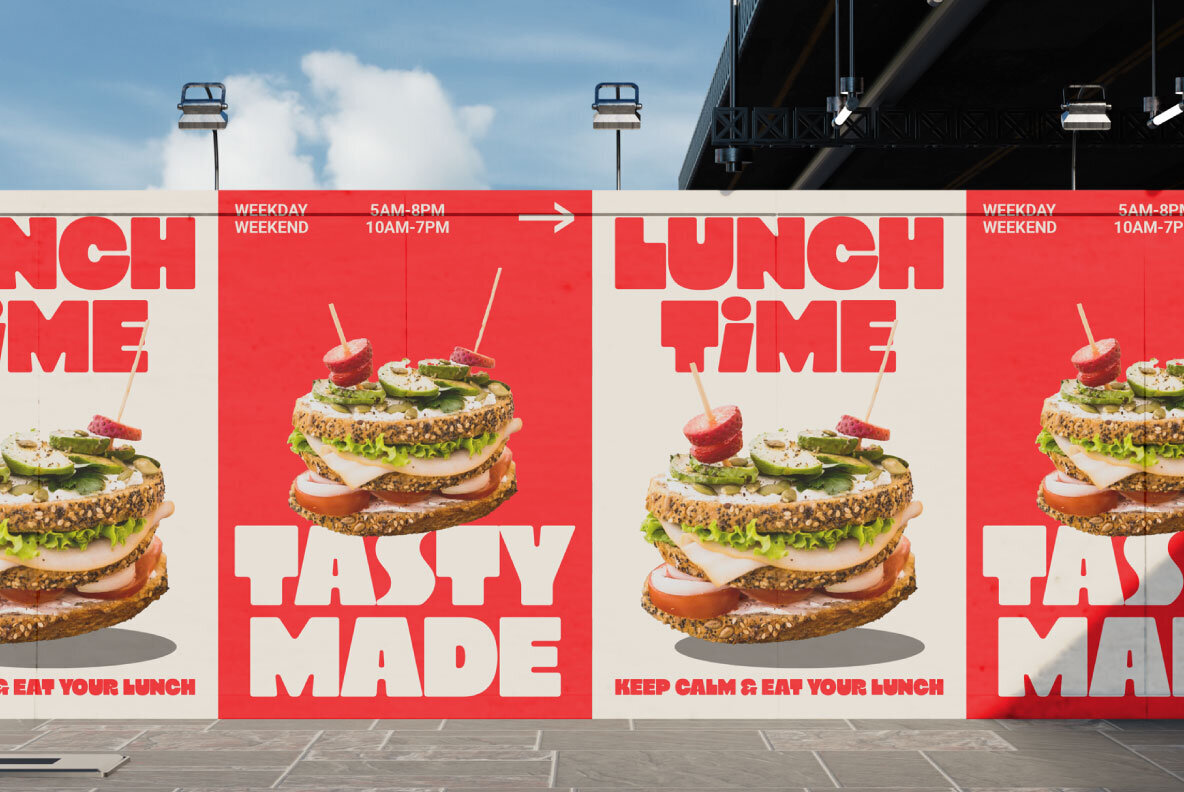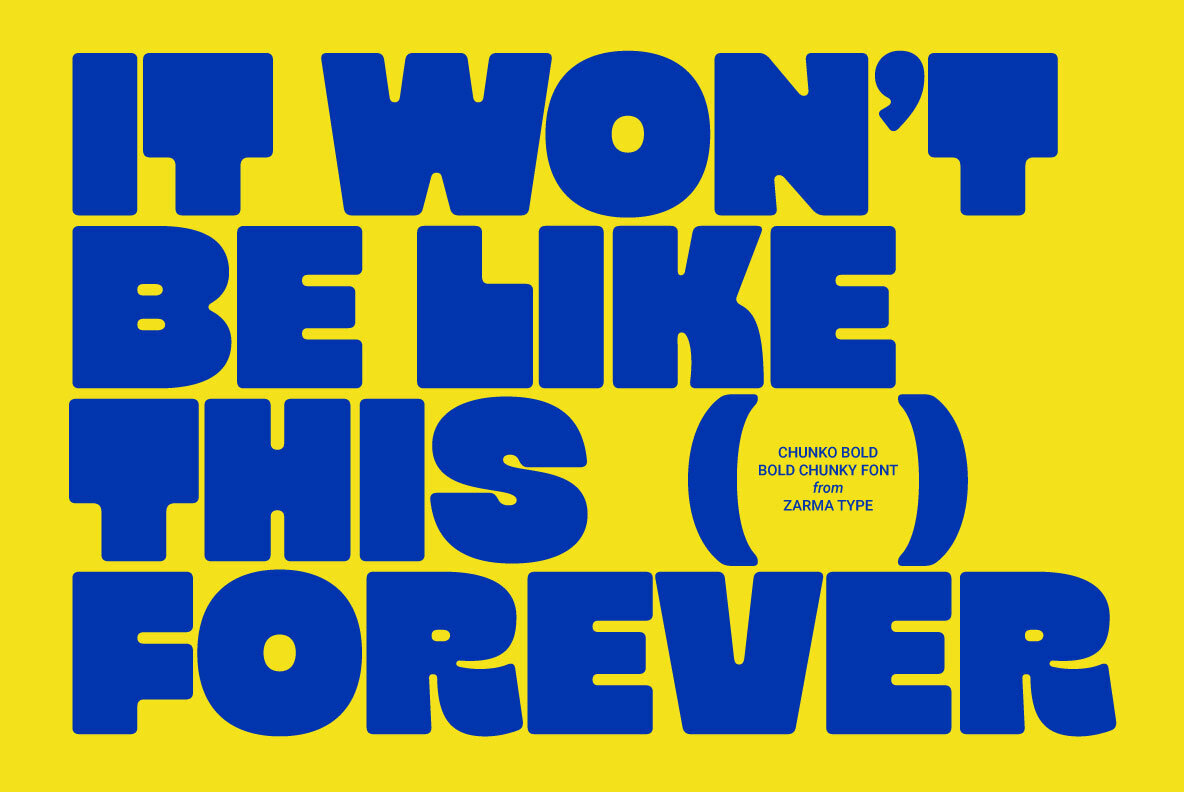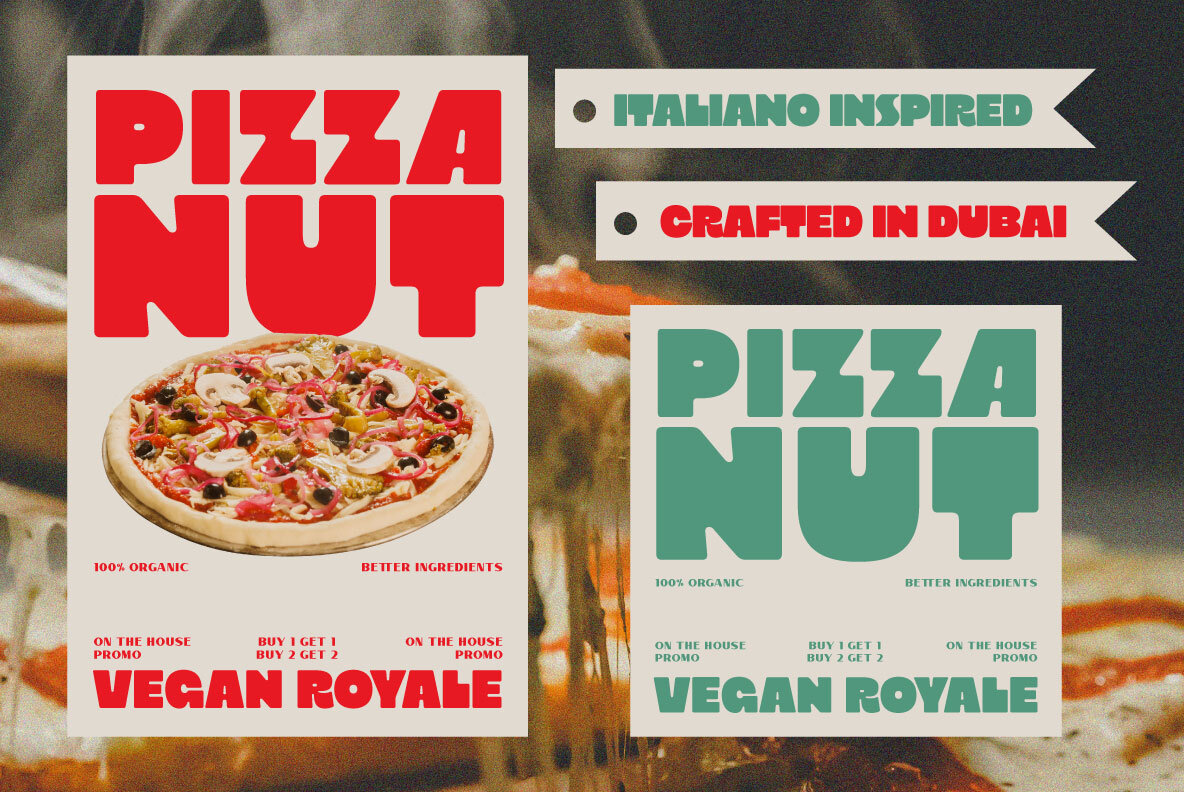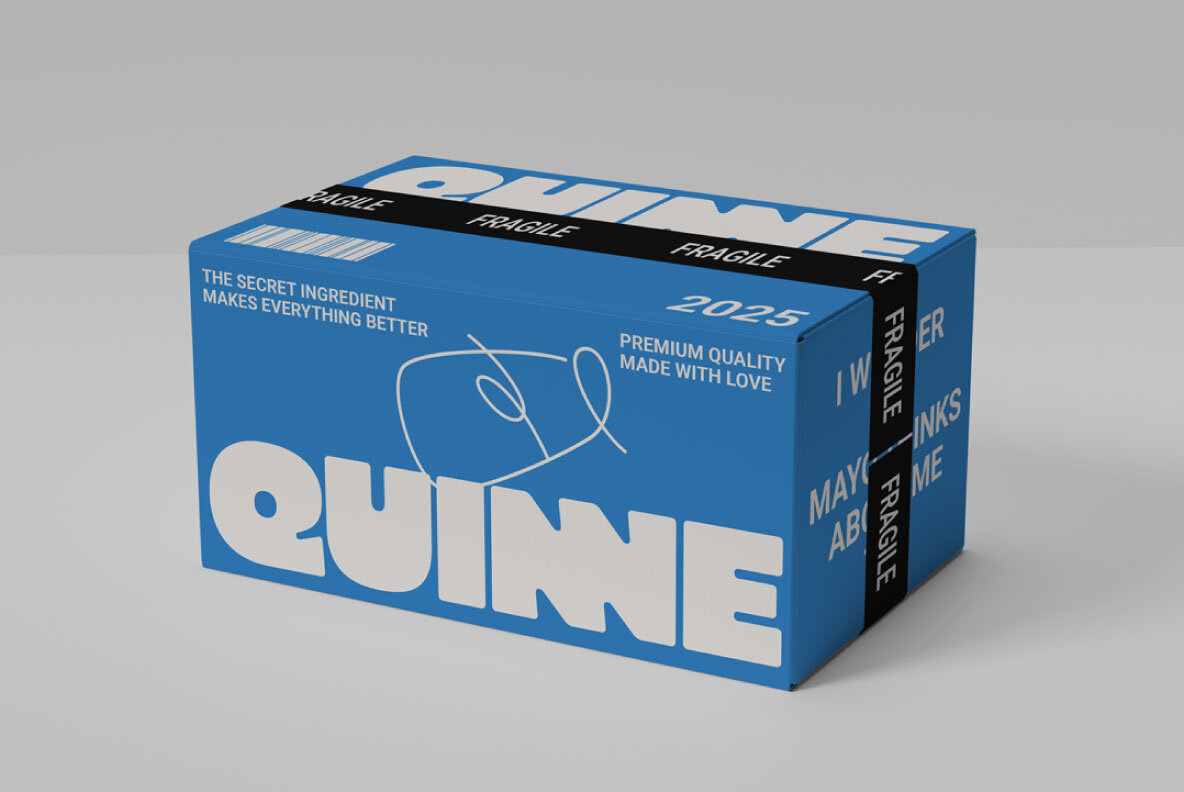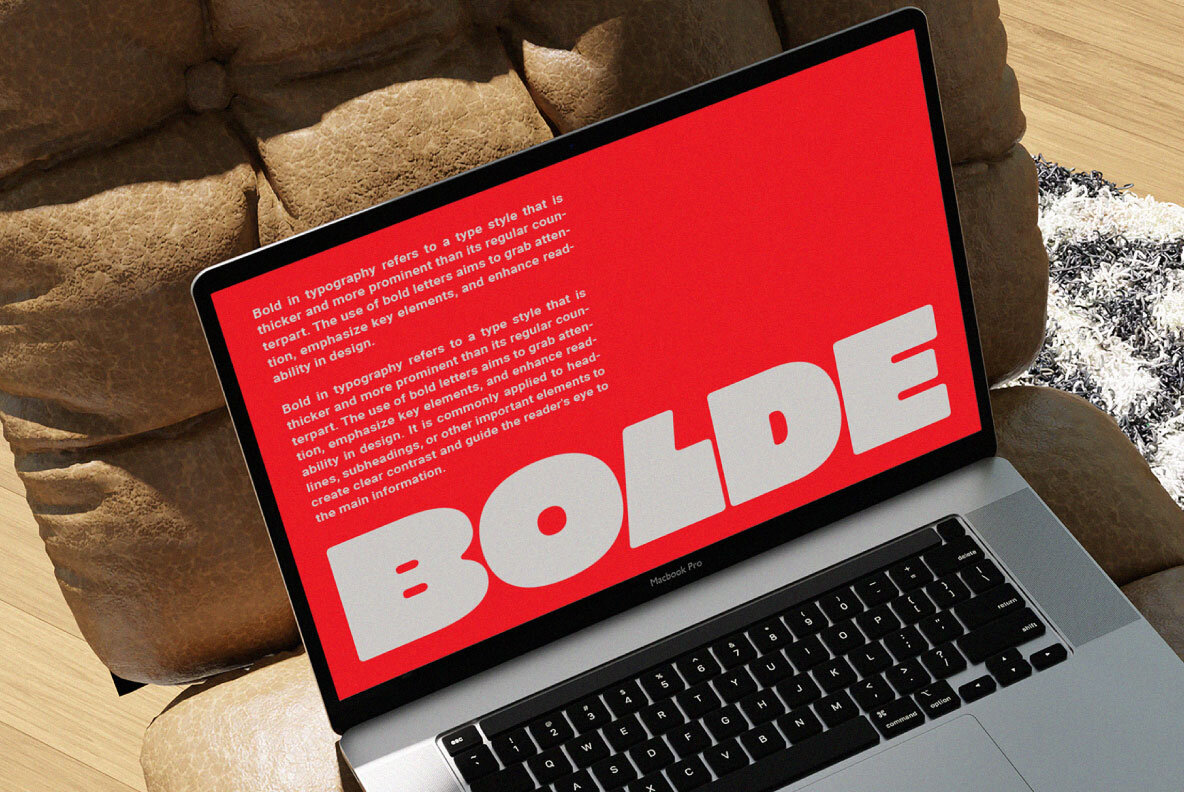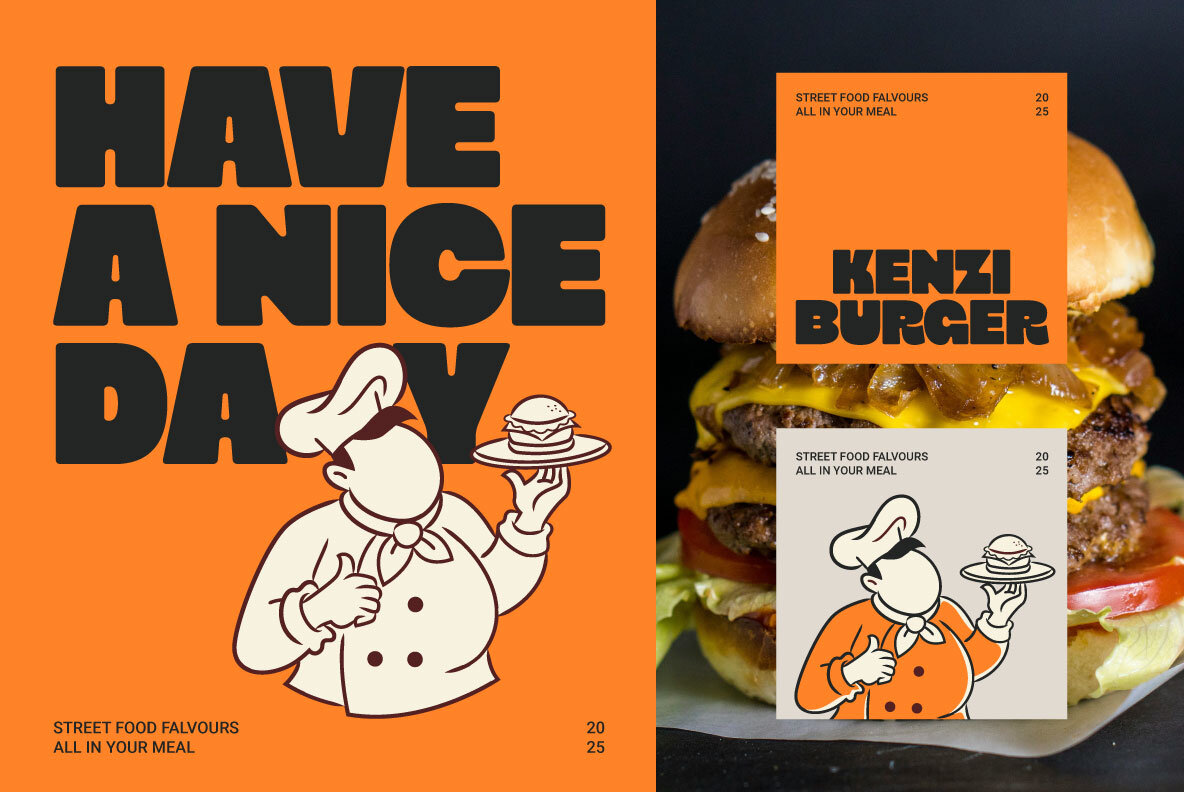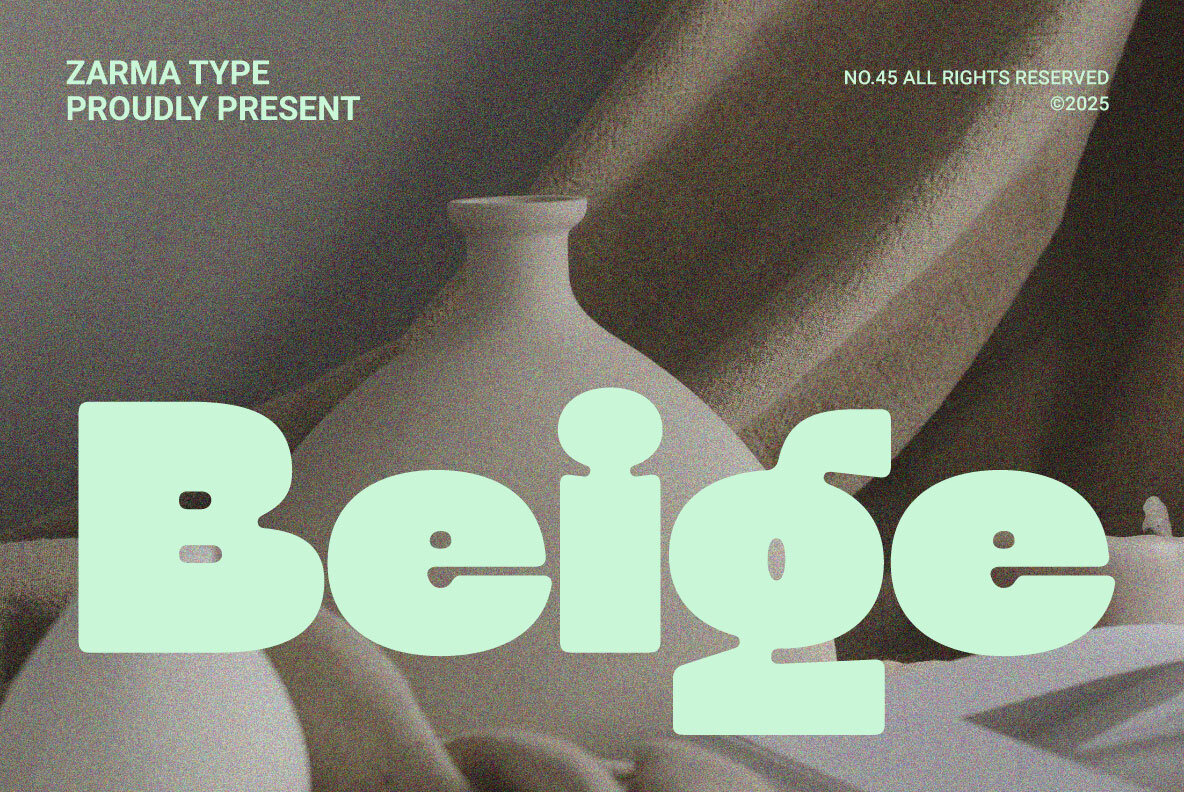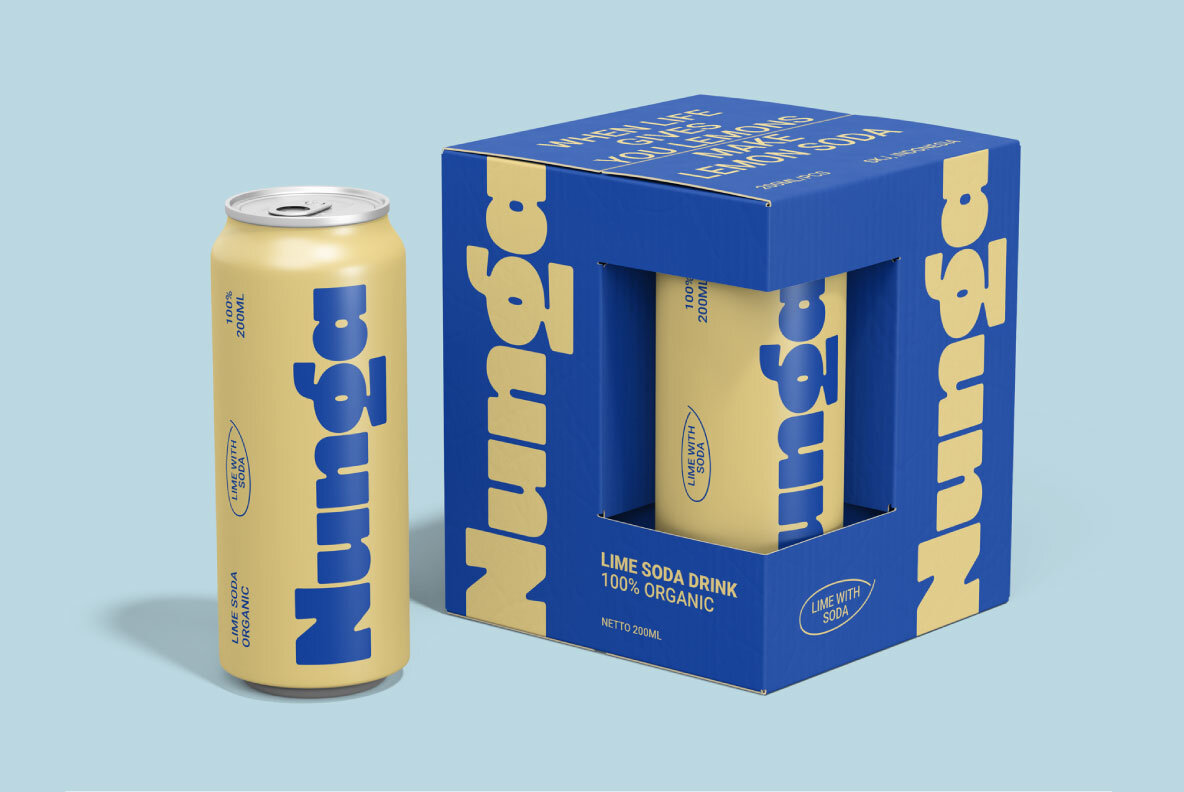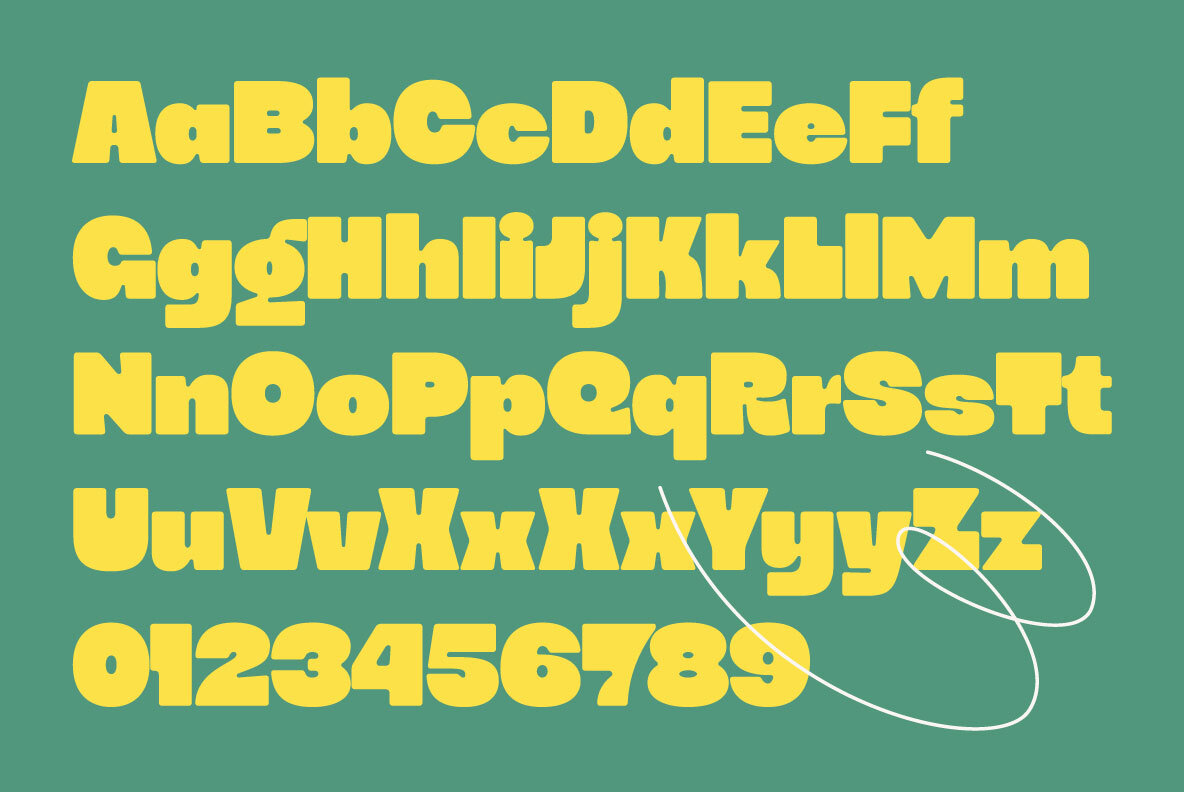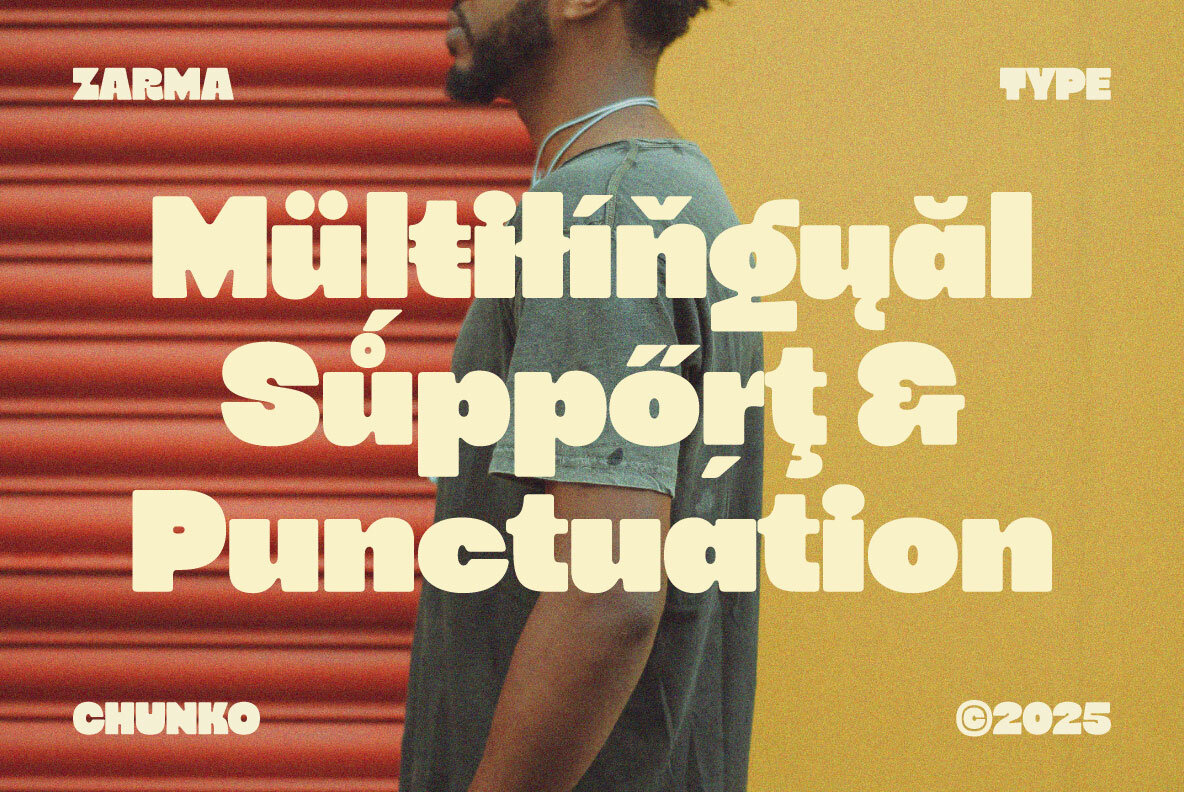
Chunko Bold Font
Chunko Bold
Chunko Bold is a striking display typeface that embodies bold minimalism, a key trend in contemporary design. With its chunky geometry, rounded edges, and strong presence, this font seamlessly blends confidence with modern playfulness. Whether used in stark compositions or clean layouts, Chunko Bold delivers maximum impact while maintaining the core principles of minimal design aesthetics. Its balanced weight distribution and carefully crafted characters make it ideal for typography-driven designs, where simplicity and boldness work in harmony. Perfect for modern branding, minimalist packaging, editorial layouts, and digital content, Chunko Bold offers a complete character set, multilingual support, optimized kerning, and versatile OpenType features. Available in OTF and TTF formats, it provides numerals, punctuation, and web font compatibility, ensuring seamless integration across various design applications. Make a bold statement with Chunko Bold—an essential tool for designers looking to create refined, impactful visuals with a contemporary minimalistic touch.